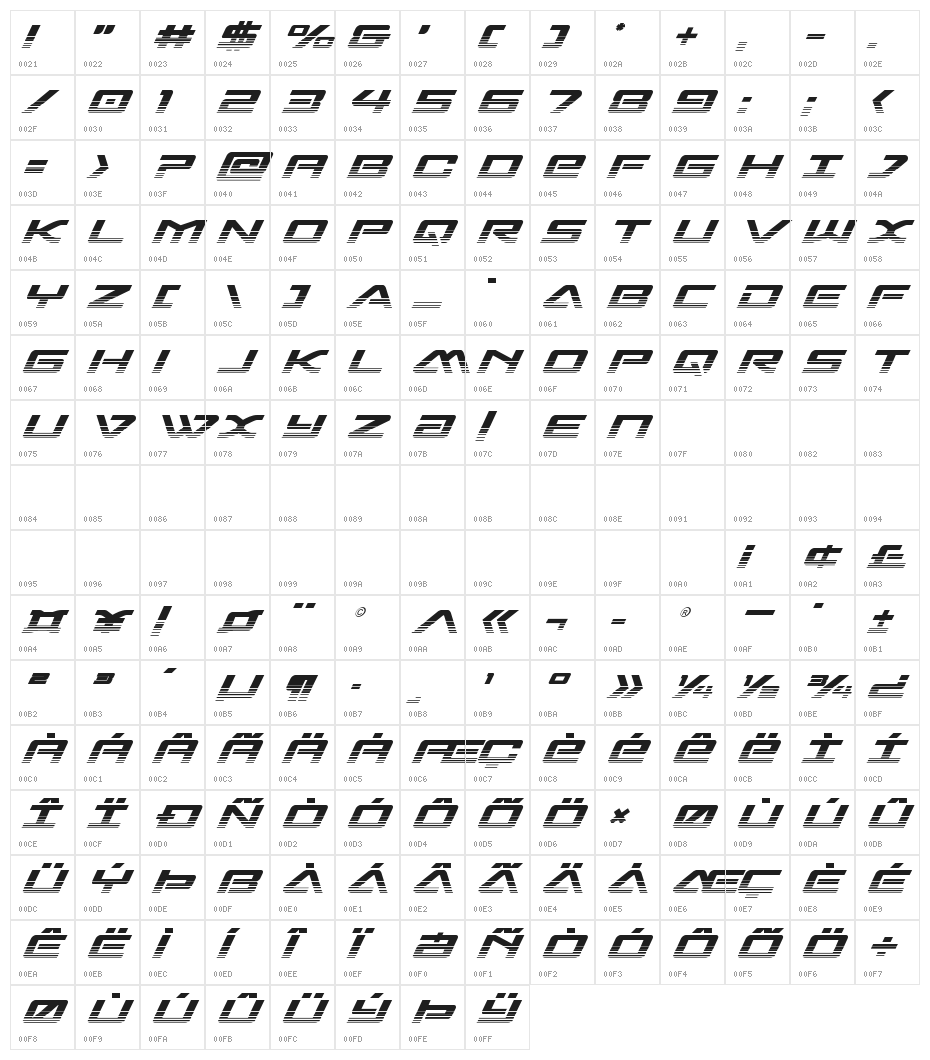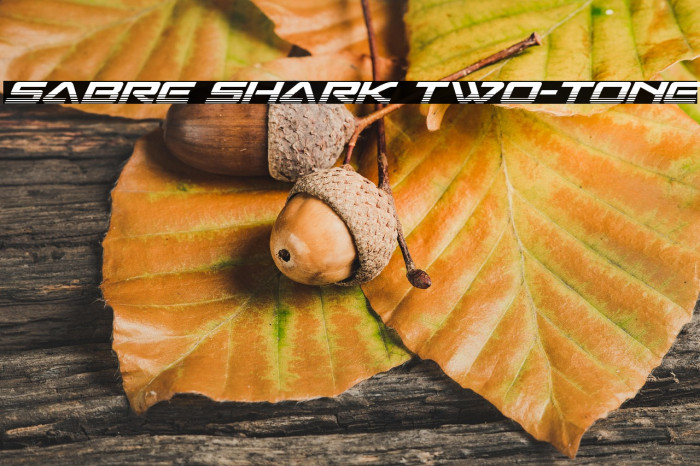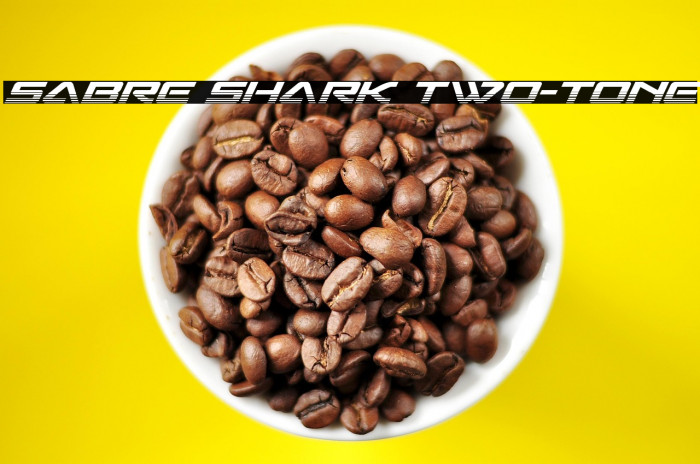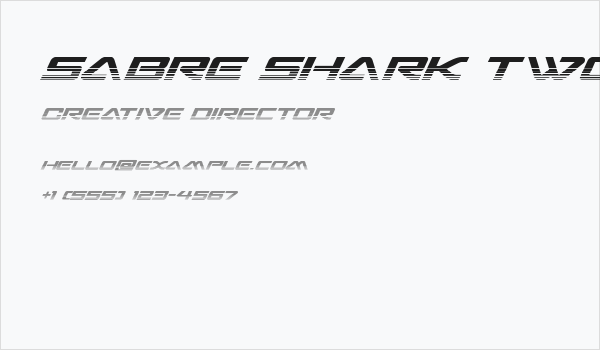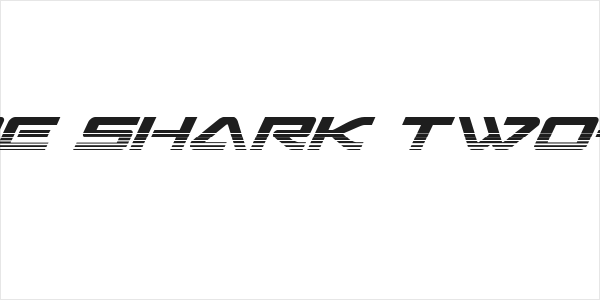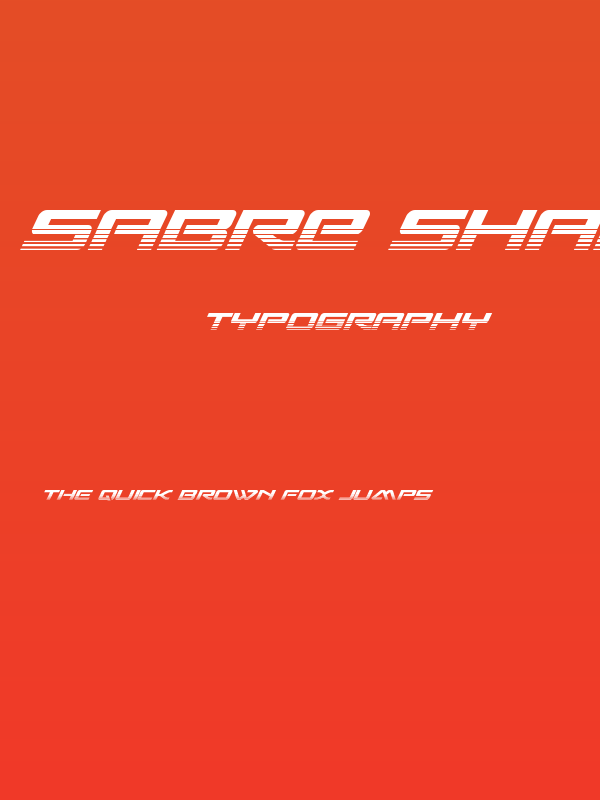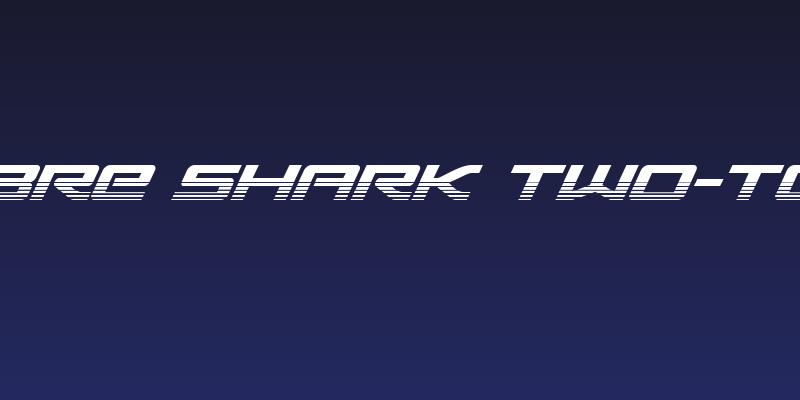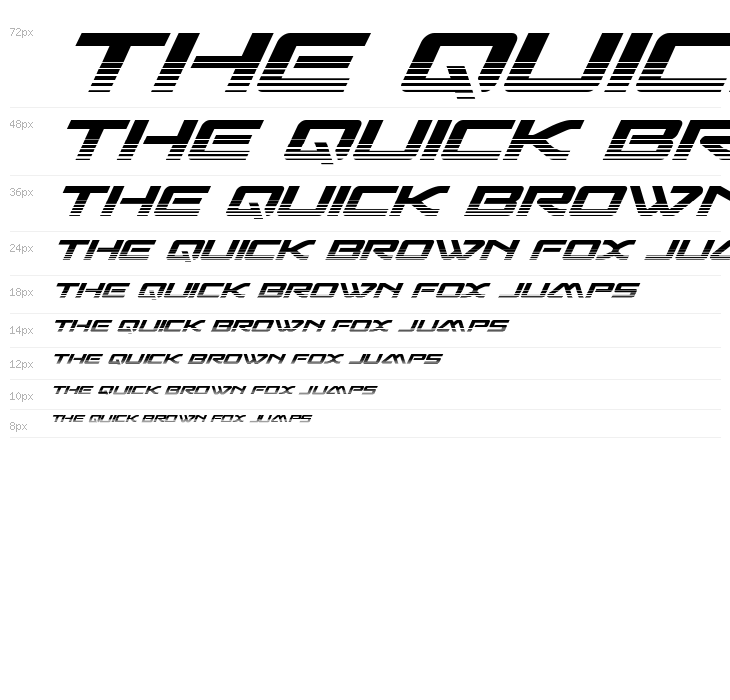
Sabre Shark Two-Tone Font
Sabre Shark Two-Tone Description
This font features a dynamic and futuristic design with a two-tone effect that gives it a sense of movement and speed. The characters are bold and angular, with a distinct slanted orientation that adds to its energetic appearance. The horizontal lines cutting through each letter create a layered look, enhancing its modern and tech-inspired style. This font is ideal for projects that require a strong visual impact and a contemporary feel.
| Proposed Projects | Ideal for sports branding, automotive designs, tech-related projects, and modern advertising campaigns. |